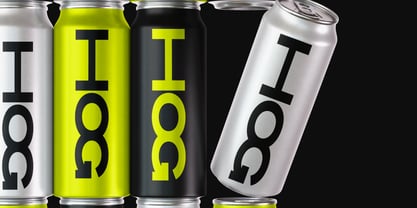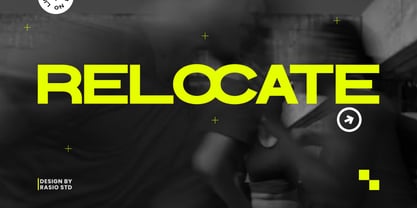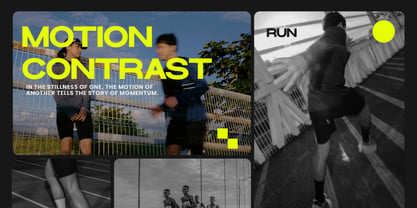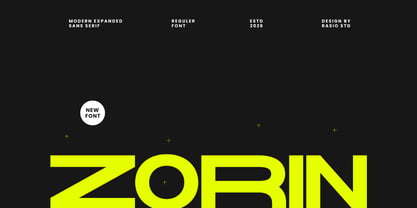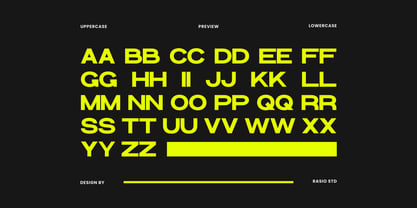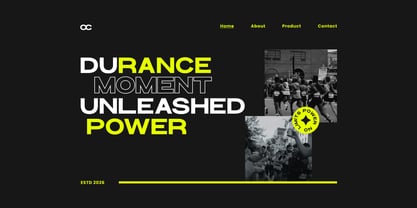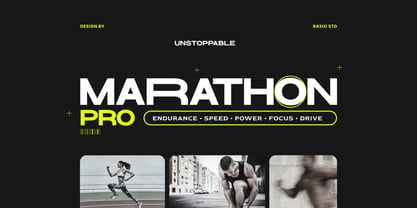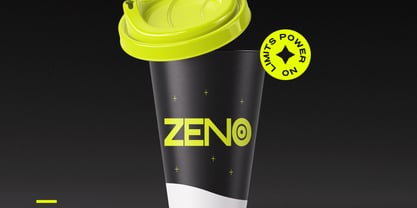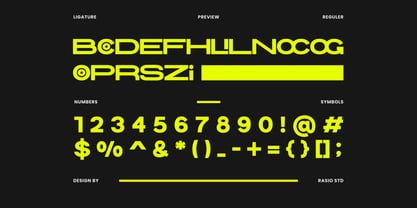
Zorin
by Rasio Studio
The Zorin Font Family was designed by Fajar Indra and published by Rasio Studio. Zorin contains 1 styles. More about this family
Zorin is a modern expanded sans serif font designed to deliver bold presence, clarity, and contemporary energy in modern typography. Built with wide letterforms, strong geometric structure, and balanced spacing, this typeface creates a powerful visual impact while maintaining excellent readability. Zorin is designed for projects that require strong, modern typography with wide visual impact. It works perfectly for sports branding, athletic campaigns, technology branding, posters, digital advertising, editorial headlines, modern logos, and high-energy marketing visuals.
Designers: Fajar Indra
Foundry: Rasio Studio